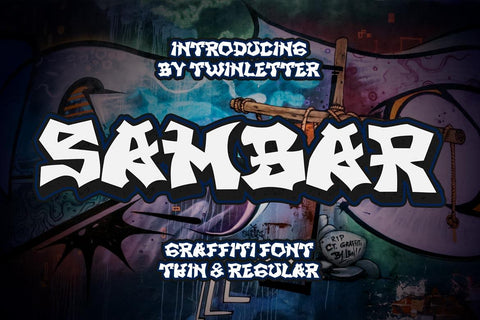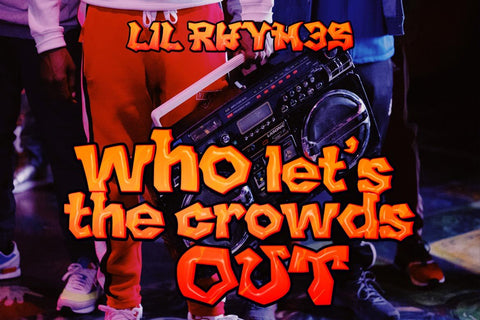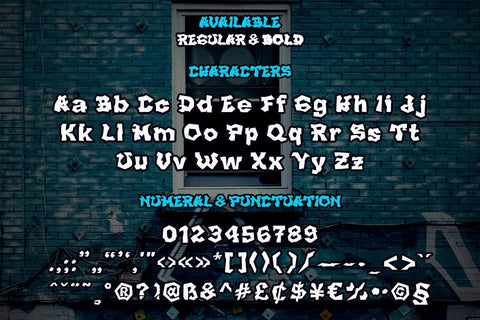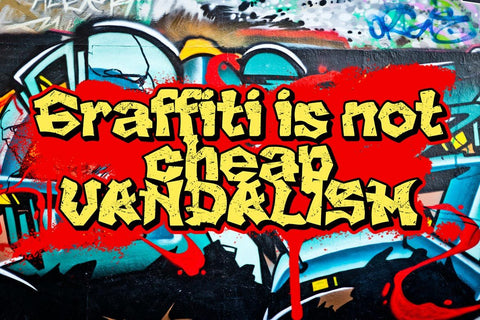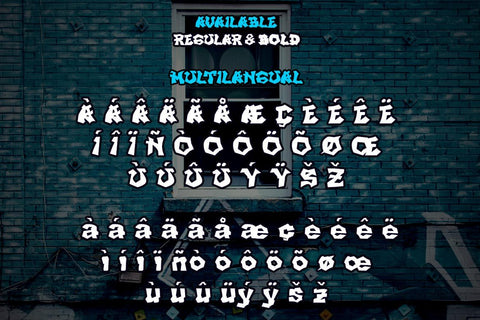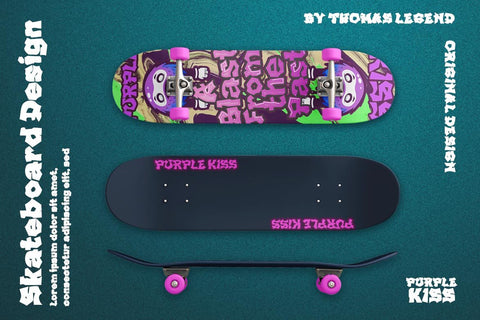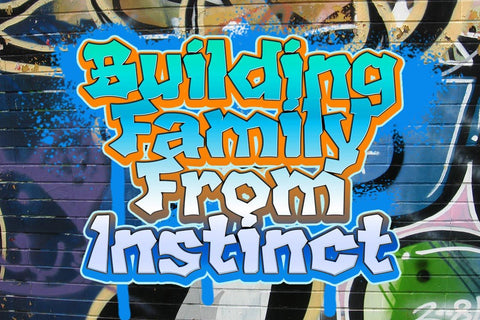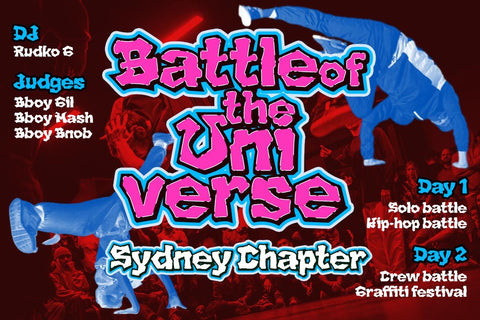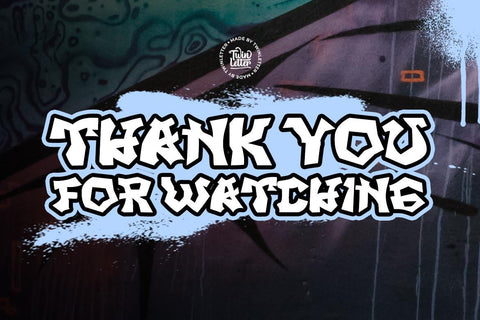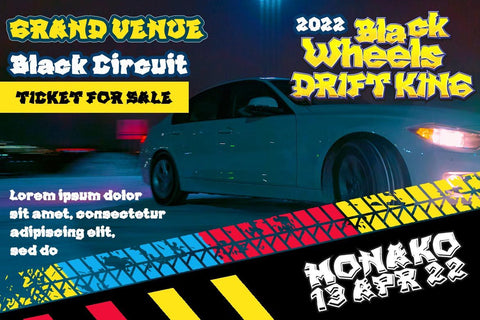
SAMBAR - Graffiti Style Font
Sambar is our newest display font, which has been meticulously created in every typeface to achieve a true graffiti-style shape.
If you don’t utilize this font, all of your outside events and activities will feel out of place.
This graffiti font is great for product logos, poster titles, headlines, packaging, film titles, logotypes, gorgeous writing, and trendy graffiti designs, among other things.
Of course, if you utilize this font in your numerous creative projects, they will be perfect and outstanding.
Use this typeface right away for your one-of-a-kind and remarkable projects.